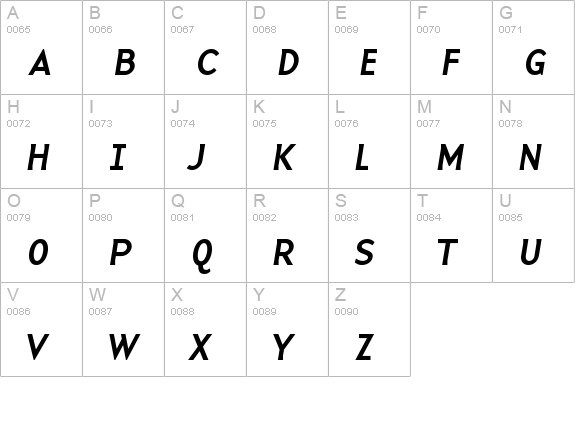
BaseNineI Font Details
Introducing BaseNineI font, a sleek and modern typeface that exudes sophistication and elegance. With its clean lines and contemporary aesthetic, BaseNineI is perfect for adding a touch of professionalism to any project. This versatile font is ideal for a wide range of design applications, from branding and advertising to web design and packaging. Best of all, BaseNineI is available for free download at FontsMarket.com. Simply visit the website to access this stunning font and elevate your designs to the next level. Don't miss out on the opportunity to enhance your projects with the timeless beauty of BaseNineI. Download it today and let your creativity shine!